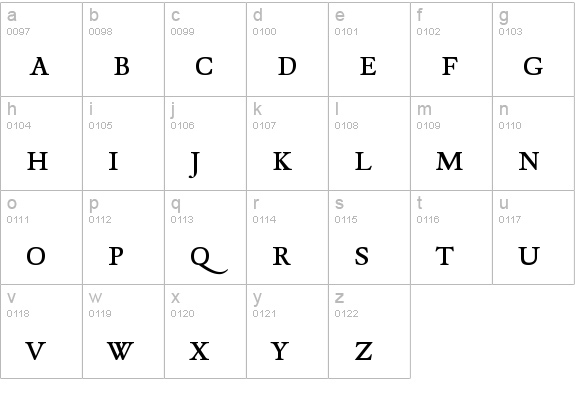
DTLElzevirTBookCaps Font Details
The DTLElzevirTBookCaps font is a classic and elegant typeface that exudes sophistication and charm. With its unique combination of traditional serif elements and modern design touches, this font is perfect for adding a touch of class to any project. Its clean lines and sharp edges make it highly versatile and suitable for a wide range of applications, from print materials to digital designs. What sets DTLElzevirTBookCaps apart is not only its aesthetic appeal but also its accessibility. This font is available for free download at FontsMarket.com, making it easily accessible to designers and creatives looking to enhance their projects with a touch of timeless elegance. Whether you're working on a branding project, editorial design, or any other creative endeavor, DTLElzevirTBookCaps is sure to elevate your work with its refined and polished appearance.